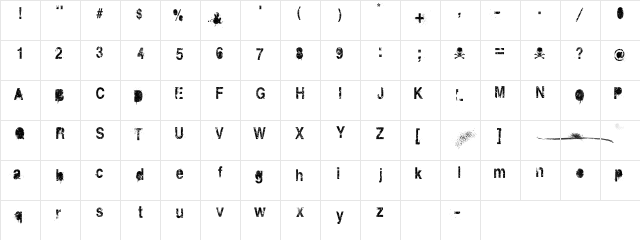
Complete DIRT2 DEATH glyph index. Displaying only characters natively supported by DIRT2 DEATH font.
DIRT2 DEATH carries an unsettling edge - its distorted letterforms are built to unsettle, perfectly suited to horror, Halloween, and dark creative work.
Font Pairing: Pair with a clean neutral sans-serif for body copy to let DIRT2 DEATH's character lead without overwhelming the composition.
Pro Tip: Use DIRT2 DEATH at larger display sizes for maximum impact. Consider generous tracking to let the disturbing character of each letterform breathe.